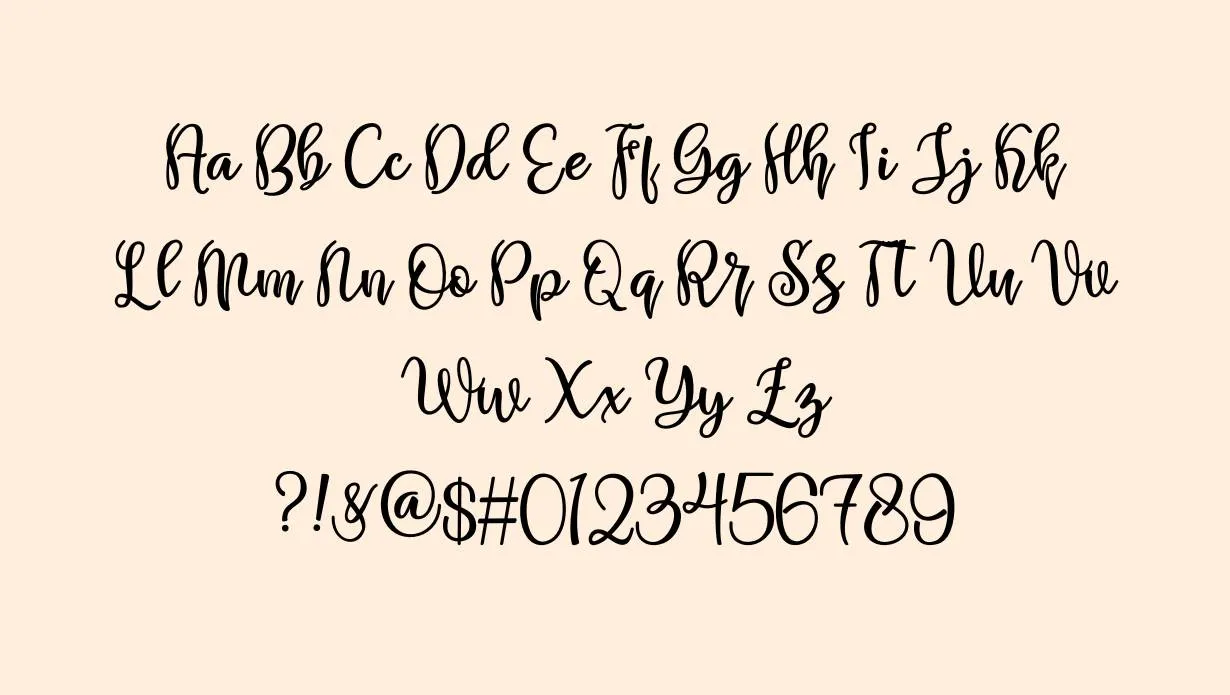
Exuding sophistication and elegance through its stylish and refined script, the Shabira font is commonly found in invitations, high-end branding, or any project demanding a touch of class.
| Name | Shabira Font |
| Designer | Dini Yulfiani Kartini |